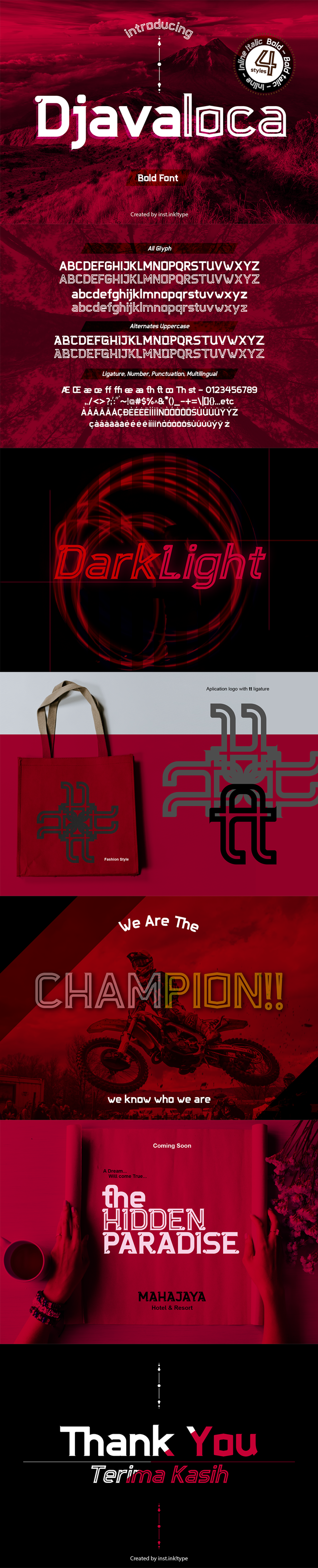
Djavaloca Font
Djavaloca is a bold sans serif font, featuring chunky characters. It will look particularly adept when used in logos, branding, packaging design, and much more. This masterfully designed font is a true must-have.